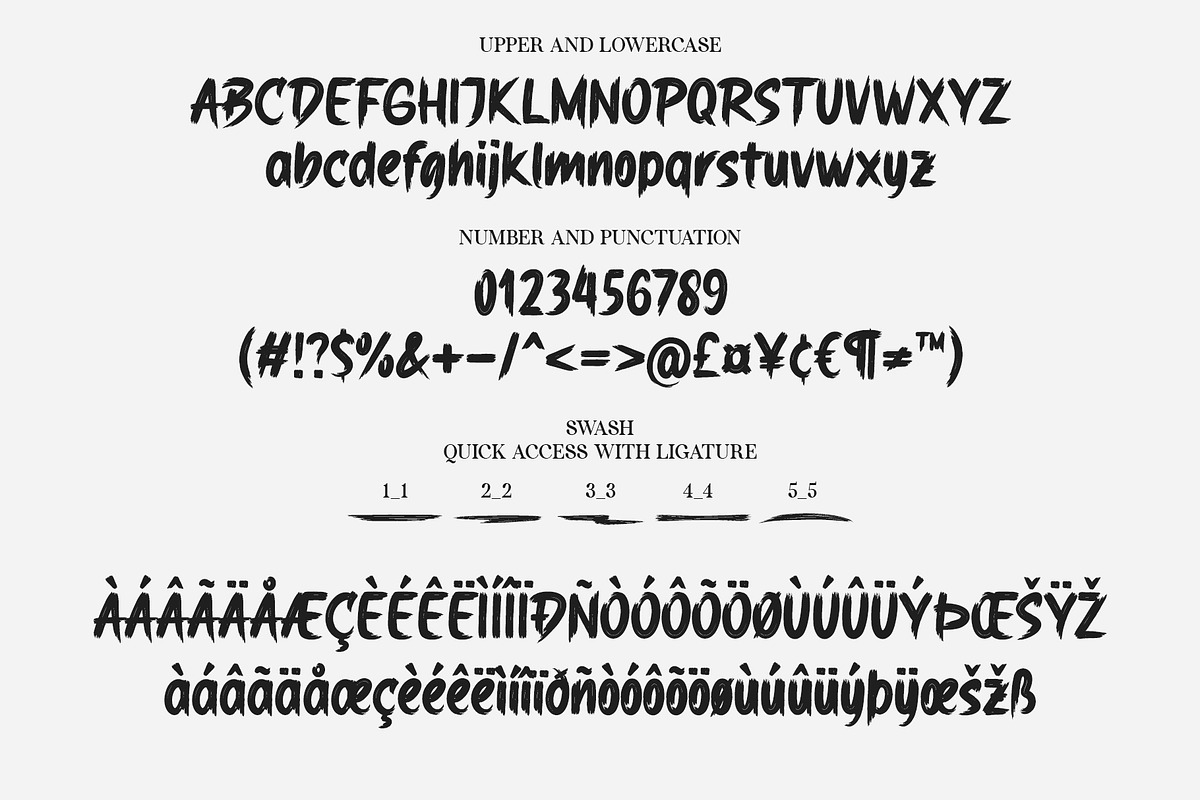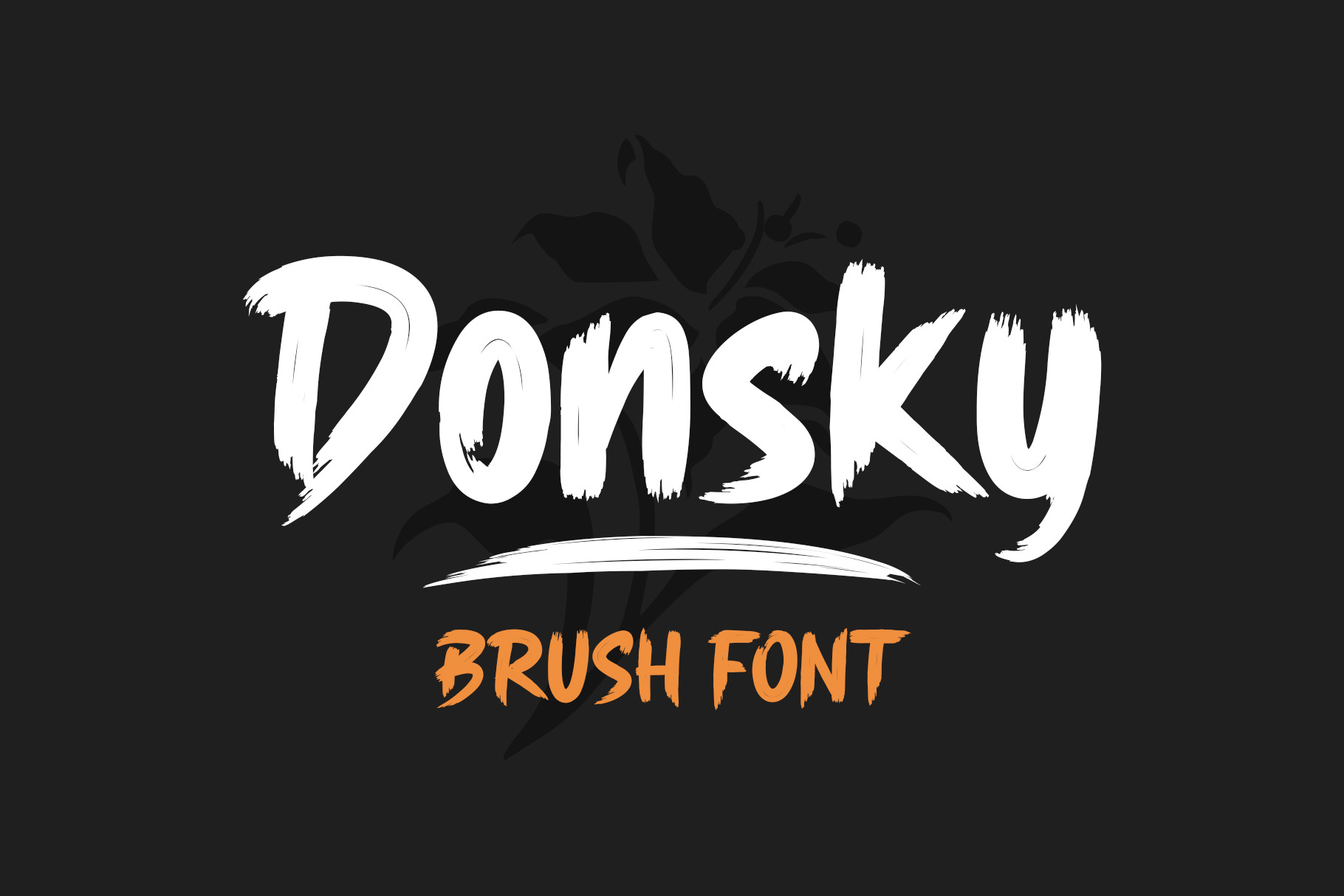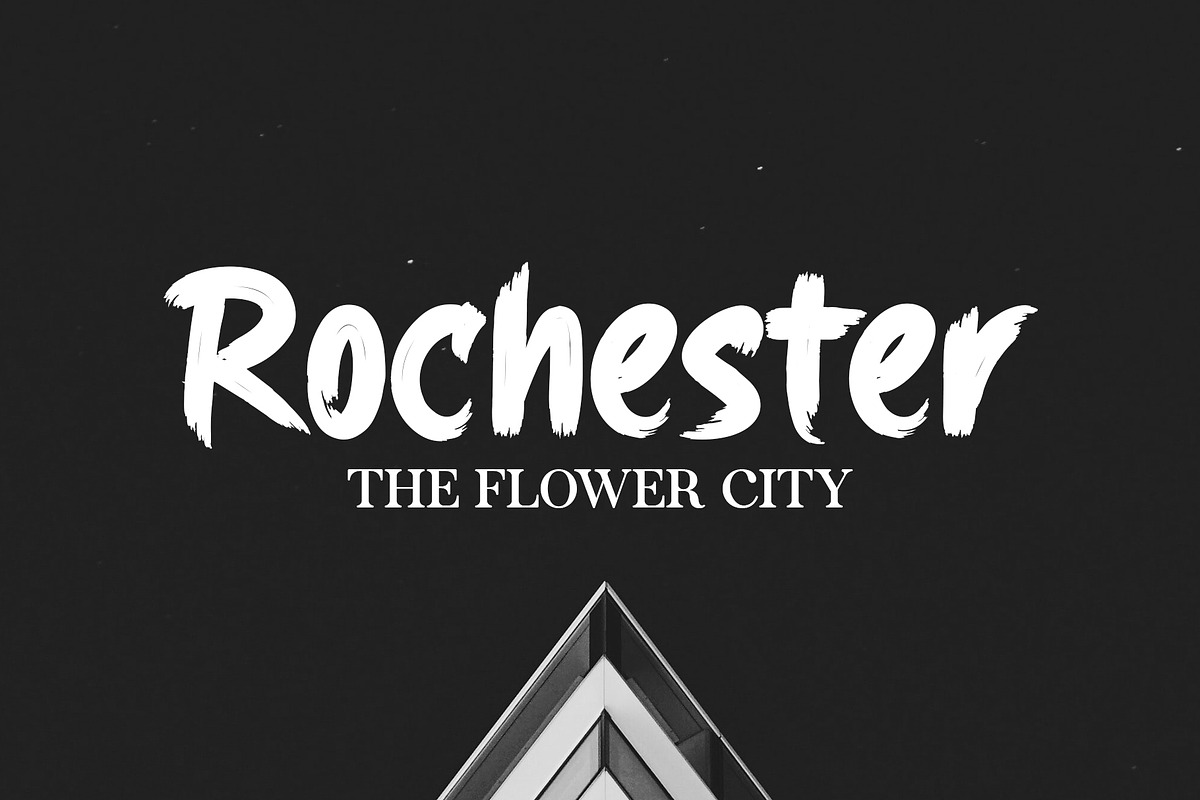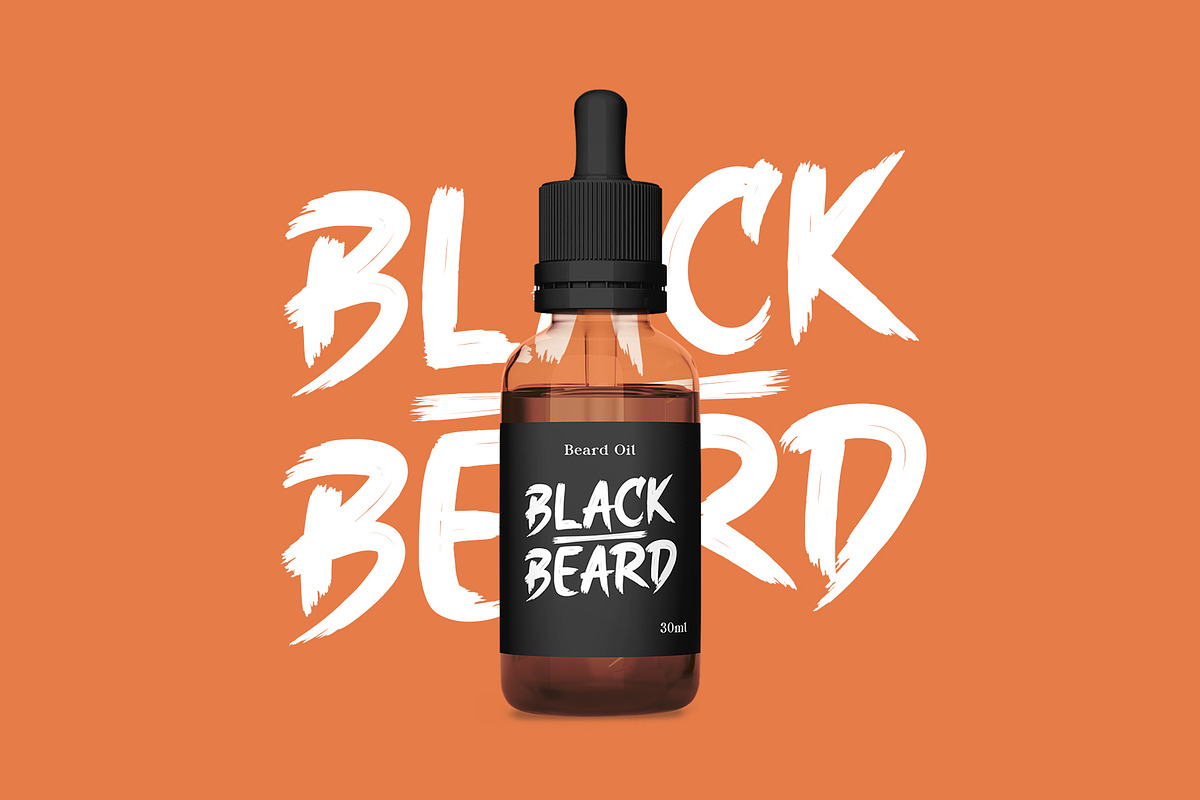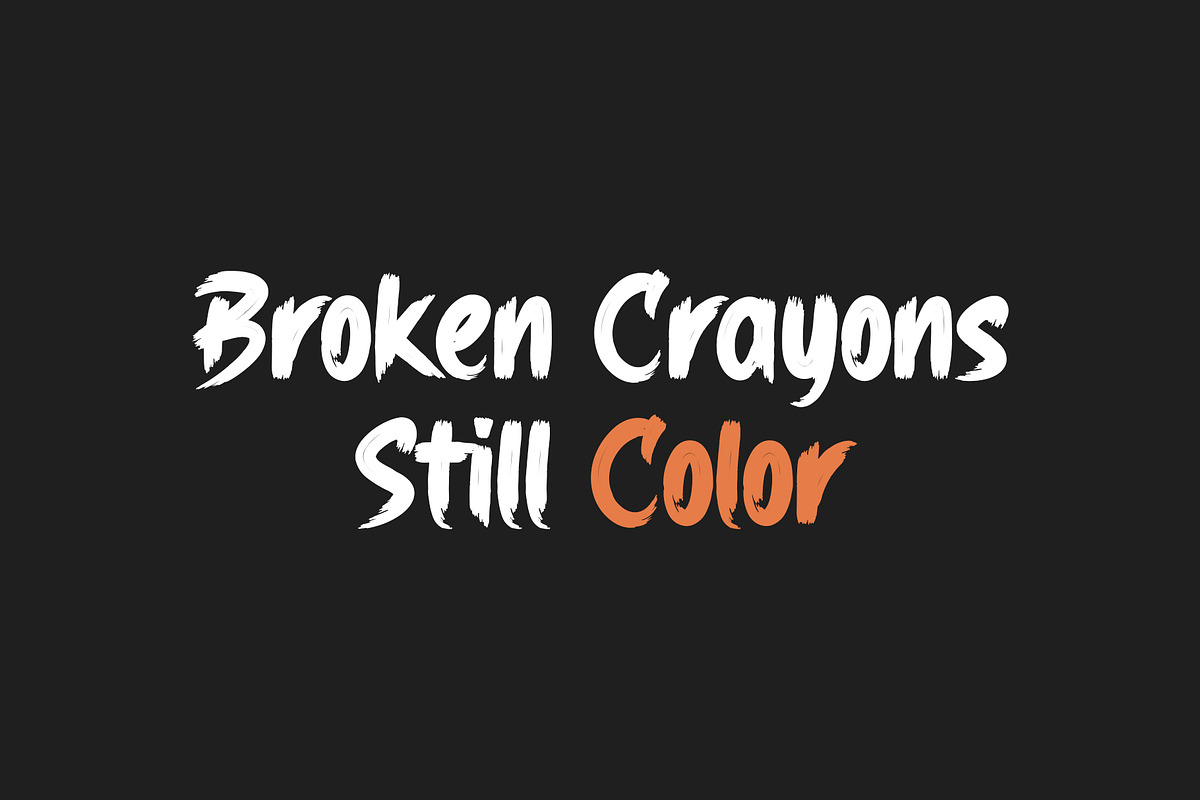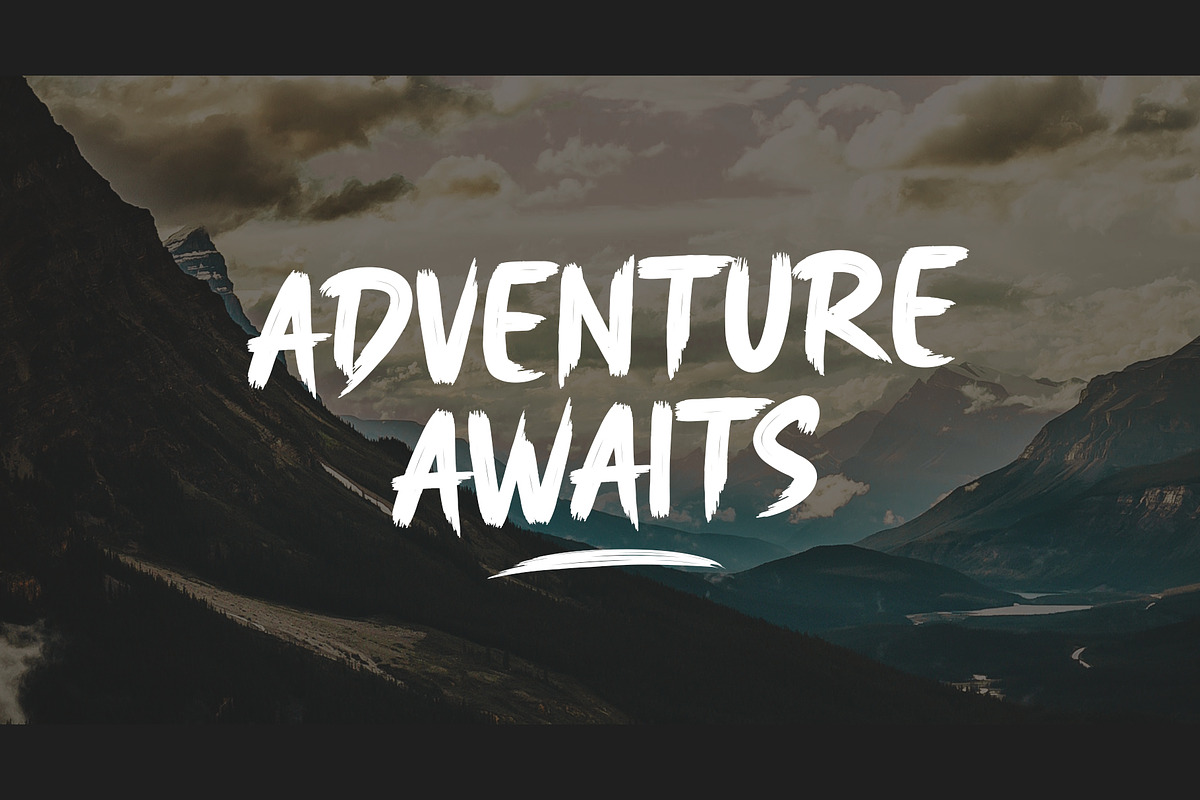
Donsky | Brush Font
Donsky is a dry brush font. Suitable for any projects such as logos, branding projects, product packaging, mugs, quotes, posters, shopping bags, t-shirts, book covers, labels, photography, watermark, and more. Use this gorgeous and unique handwritten font to bring any DIY project to life!
Quick access swash
- Add number (1-5) + underscore + number (1-5). Ex: 1_1, 2_2, 3_3, 4_4, 5_5